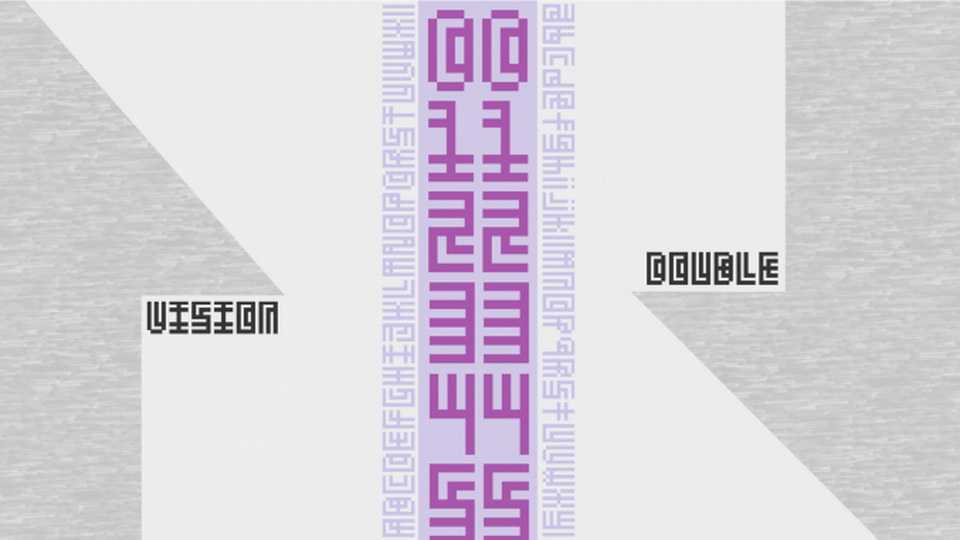
Download Double Vision font, a double-line rectangular block typeface that combines boldness with geometric precision for a strong and impactful visual statement.